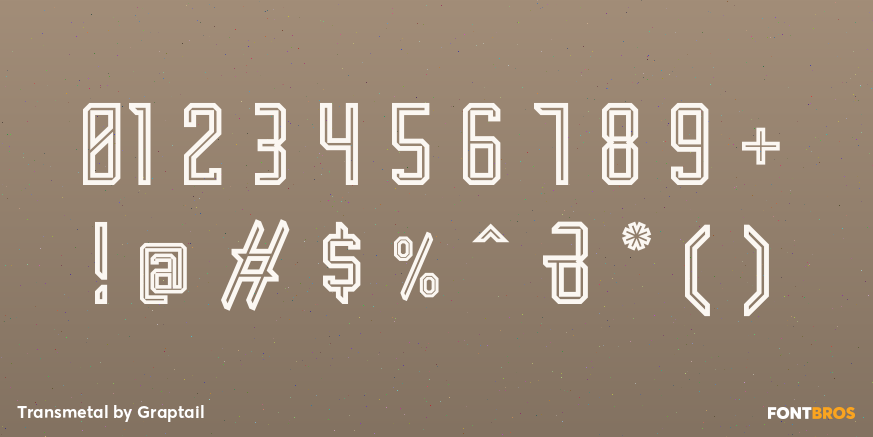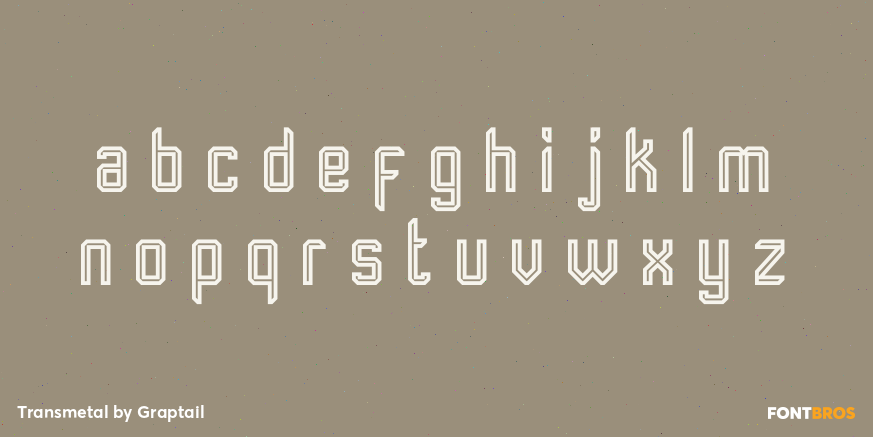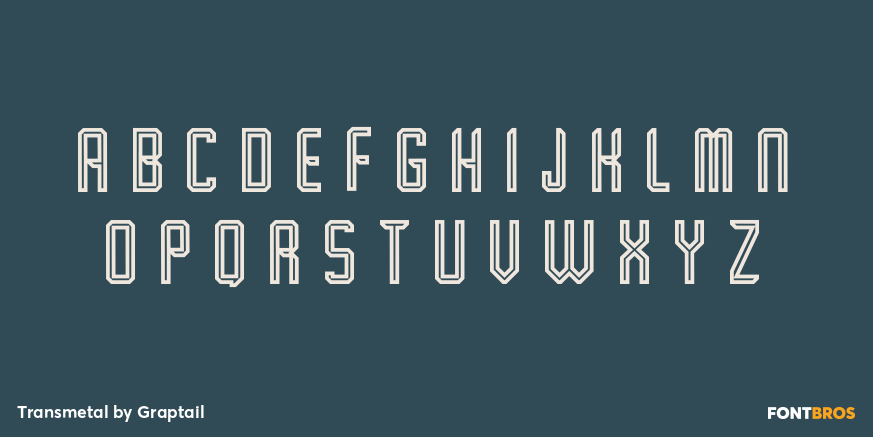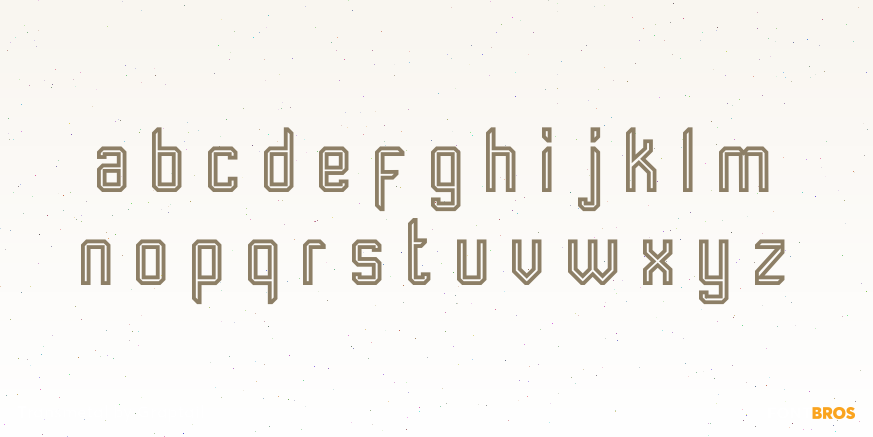
Transmetal
Font Family by Graptail
Transmetal is a condensed display typeface is inspired by industrial logo-types, and makes for a powerful headline font. It's strong appearance will be useful when creating commanding titles and headlines that demand attention. The special encounter between uppercase letters and lowercase letters is perfect with 2 variations style. Transmetal is a slightly condensed face, but has the thickness to provide all the stability you need.
It includes all common glyphs including lower and uppercase characters, numbers and symbols.